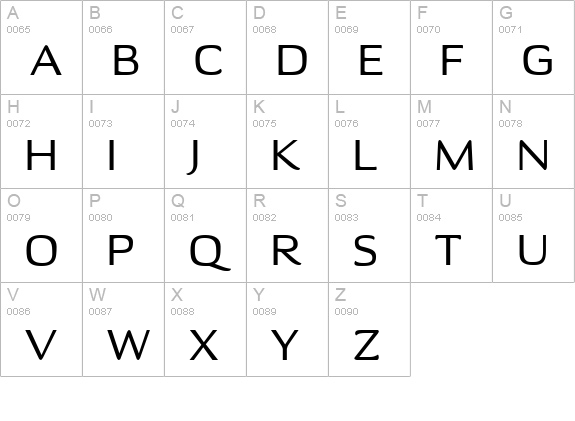
Ohitashi Font Details
Ohitashi font is a beautifully crafted typeface that exudes elegance and sophistication. Its graceful curves and clean lines make it perfect for a wide range of design projects, from invitations to branding to packaging. The versatility of Ohitashi font allows it to seamlessly transition between modern and classic styles, making it a valuable addition to any designer's toolkit. What sets Ohitashi font apart is not just its aesthetic appeal, but also its accessibility. This stunning font is available for free download at FontsMarket.com, allowing designers of all levels to access its beauty without any cost. Whether you're a seasoned professional or a budding enthusiast, Ohitashi font is sure to elevate your designs and make a lasting impression. Download Ohitashi font today and unleash your creativity with this exquisite typeface.